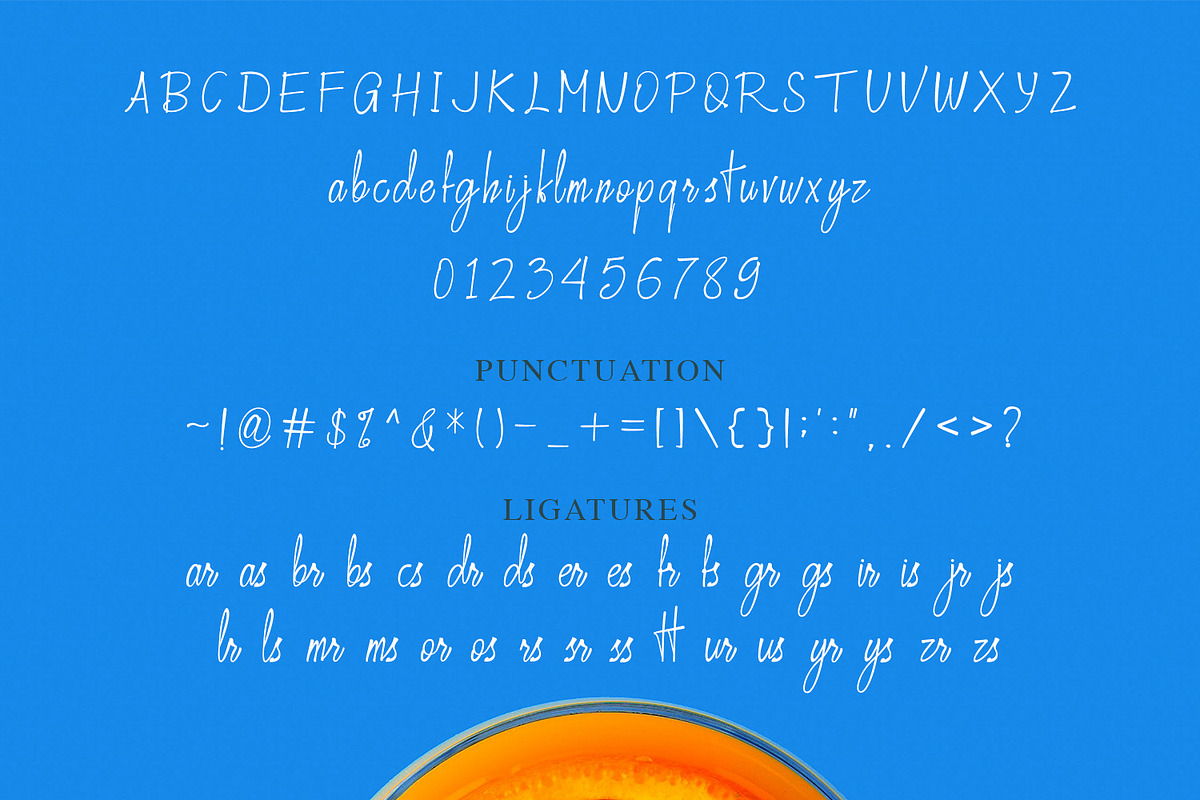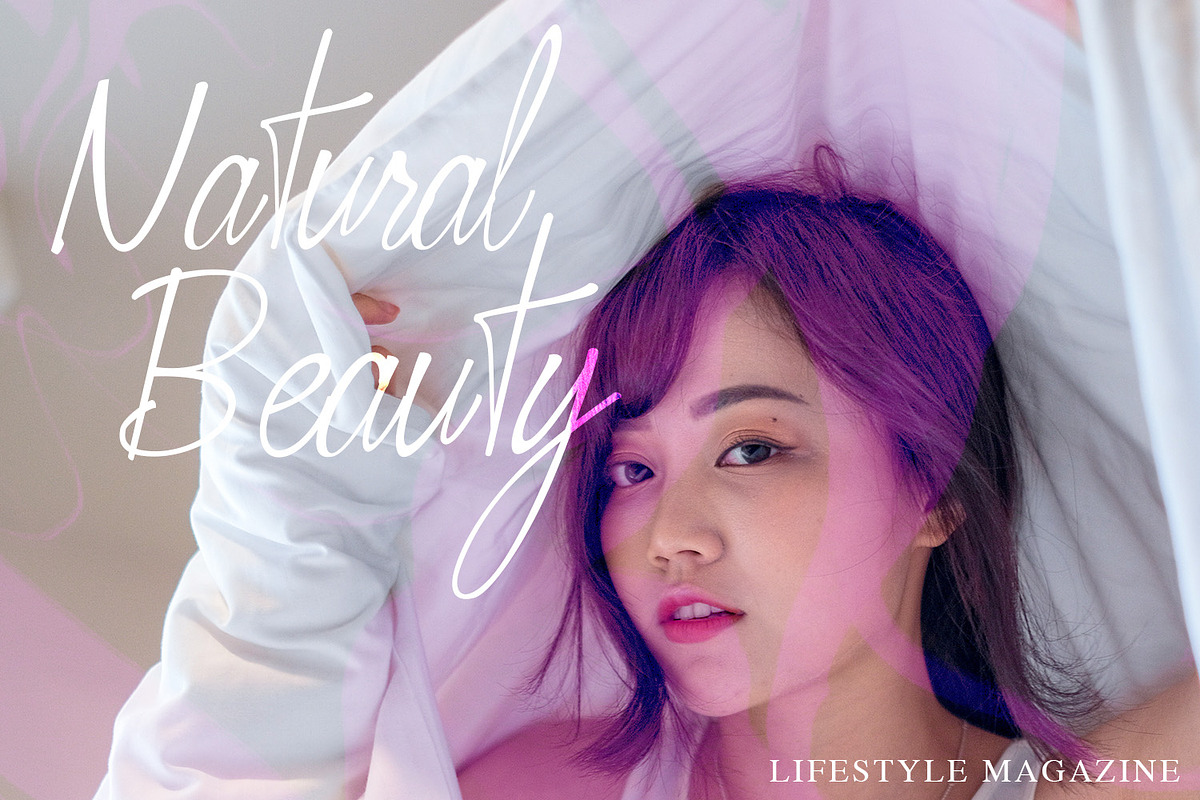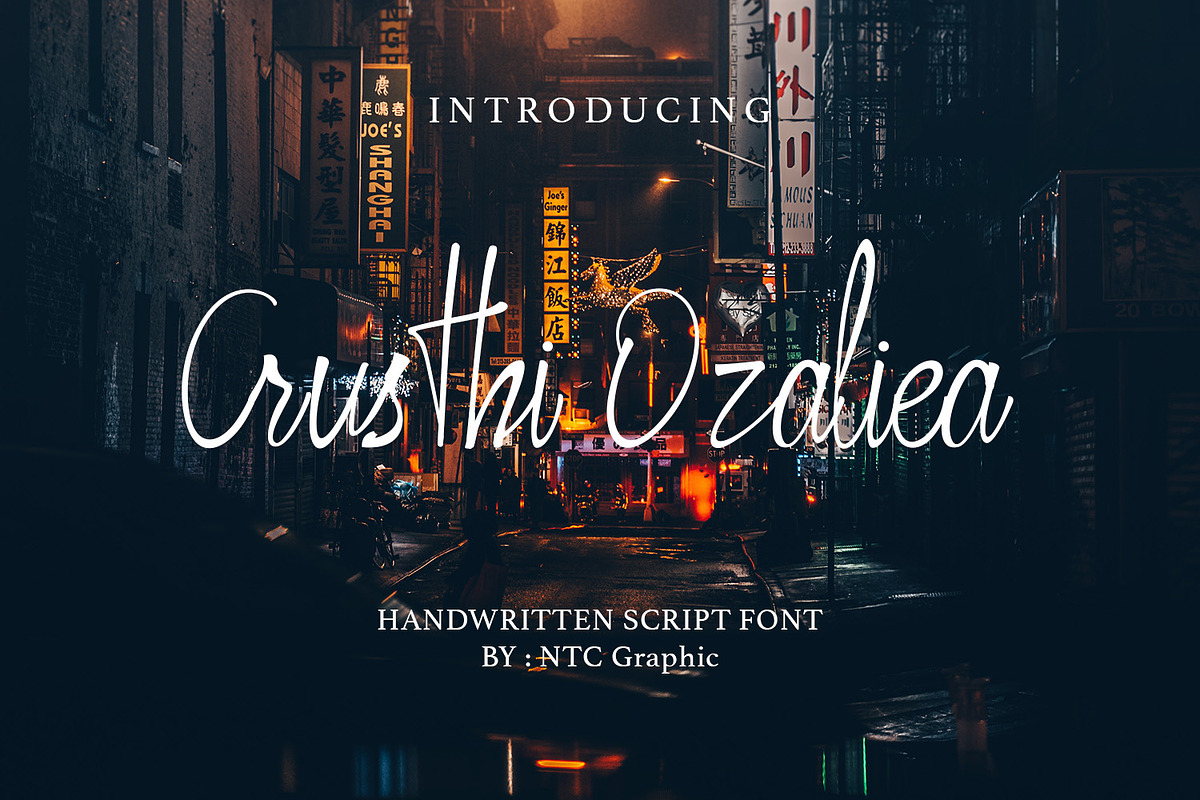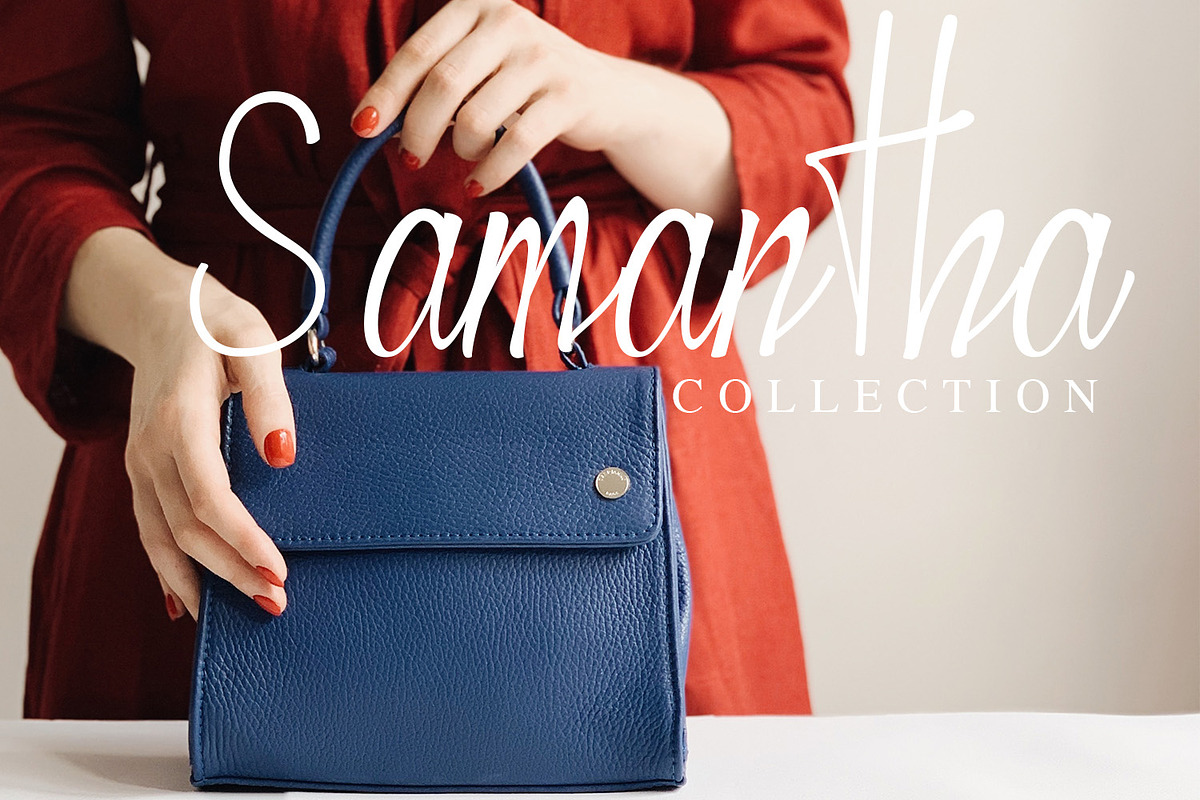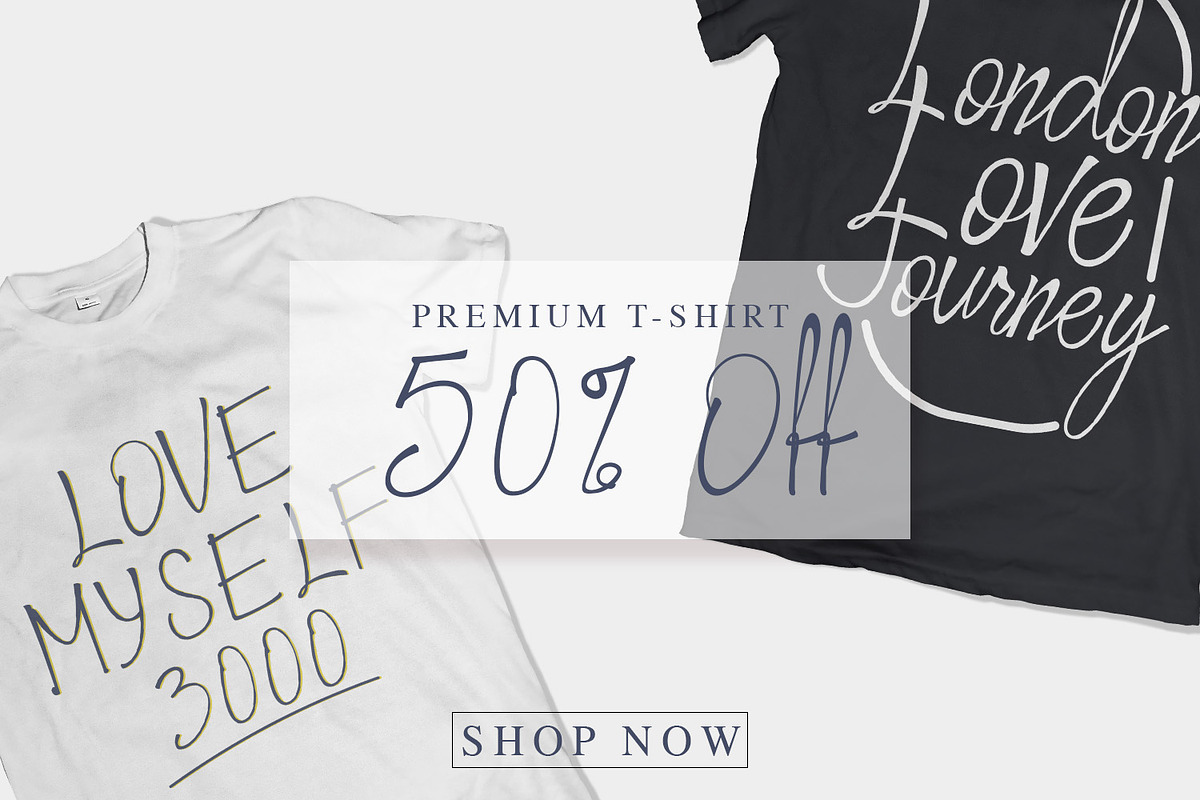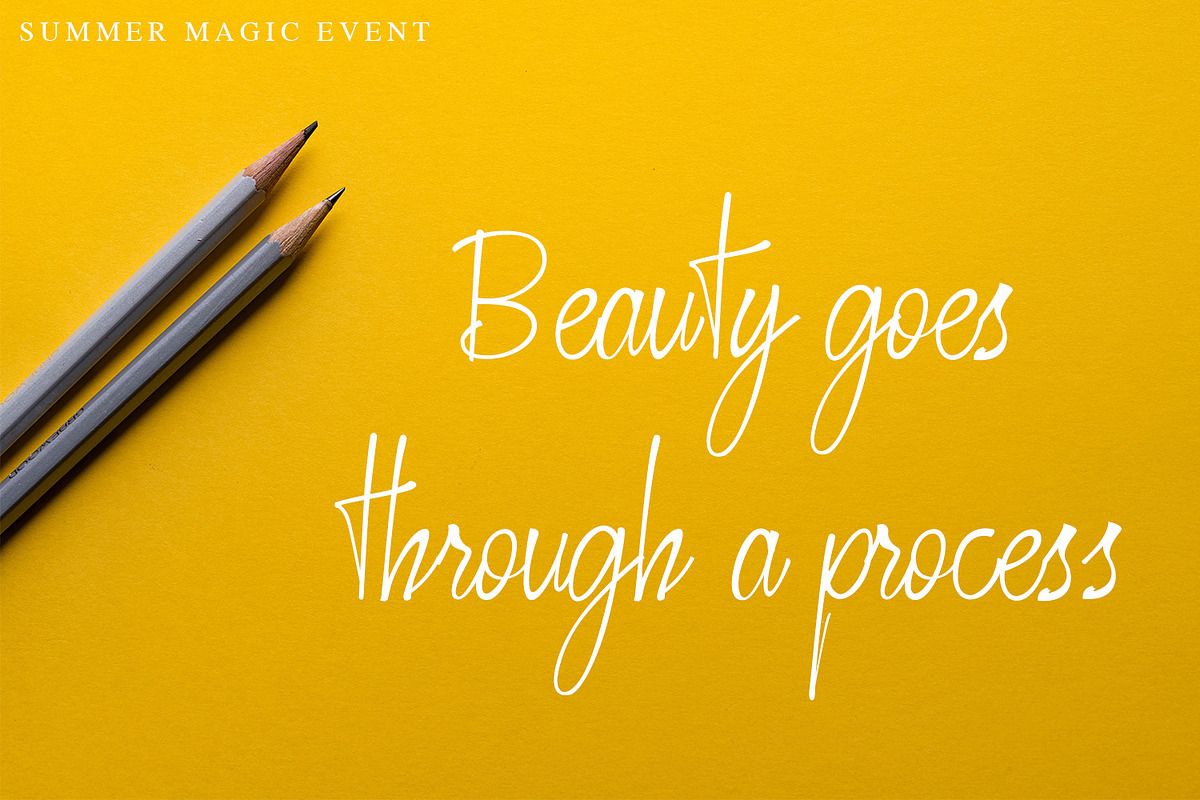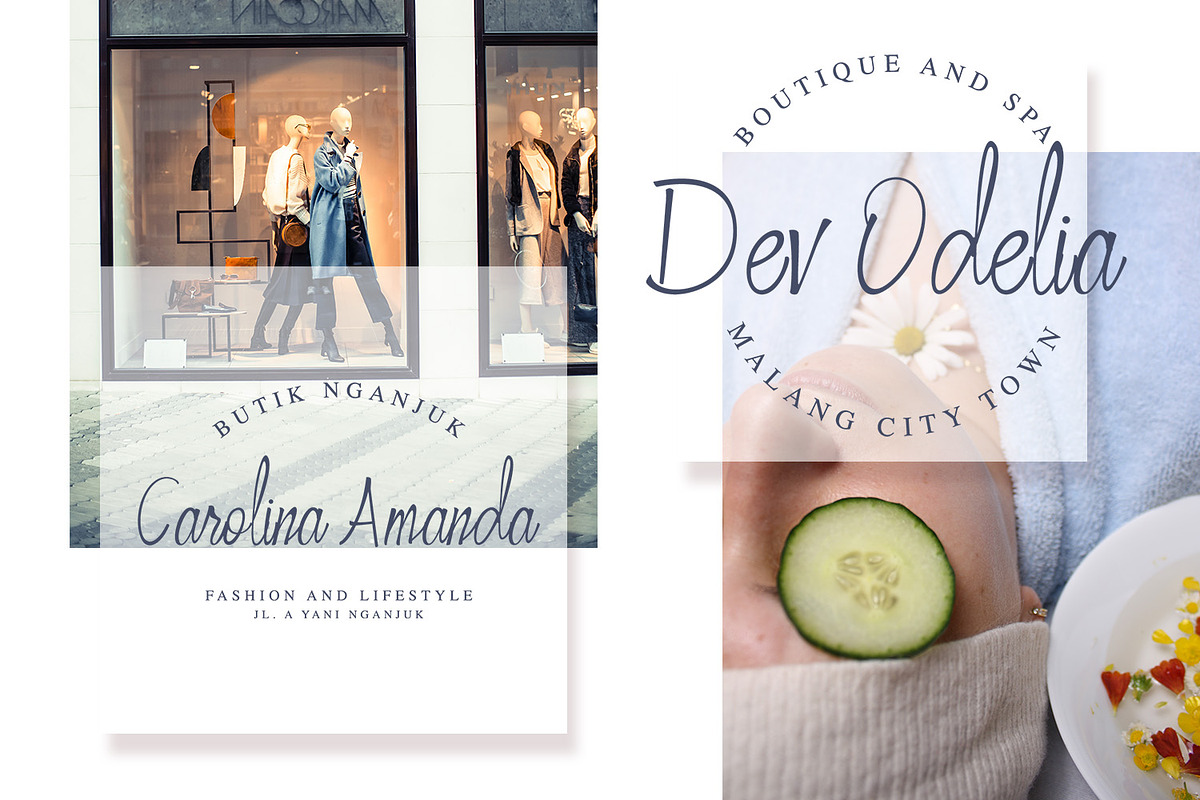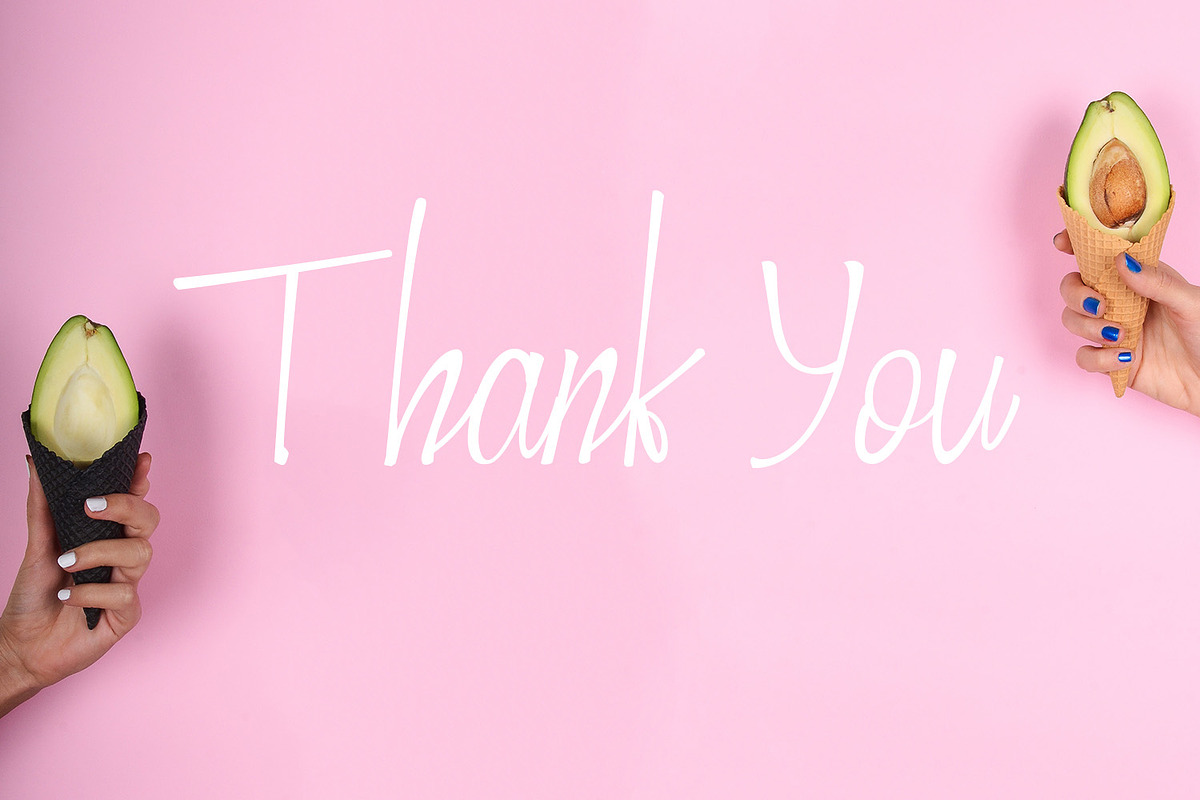
Crusthi Ozaliea
Crusthi Ozaliea is a Handwritten Script type font that is very suitable for the publication needs of fashion, magazine, t-shirt design, flyers, and can also be used as a signature font. This font has a beautiful script character, but has a firm side in it. Made with hand scratches directly and then processed into font processing software.
Crusthi Ozaliea font with uppercase characters A-Z, lowercase characters a-z, punctuation and 33 ligature characters that enhance this font shape.